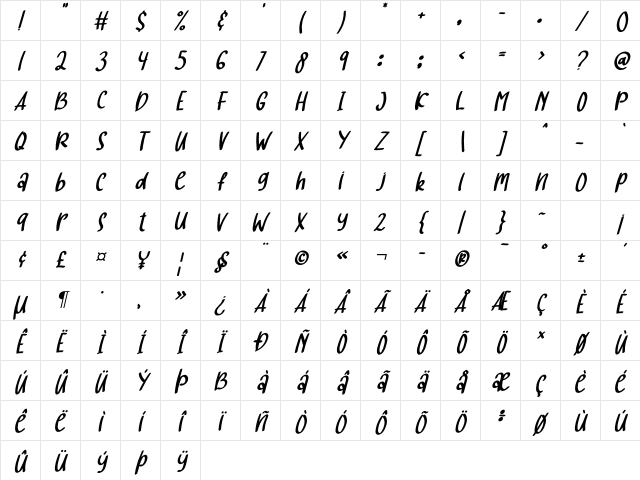
hello baby Italic
Designer: Heru Utama Putra
Design Context for hello baby
hello baby is a composed and adaptable typeface that performs quietly and consistently across a wide range of design contexts. The slanted form adds forward momentum and visual energy.
Pro Tip: Use hello baby for emphasis, pull quotes, and subheadings where its slanted energy can add rhythm to the layout.